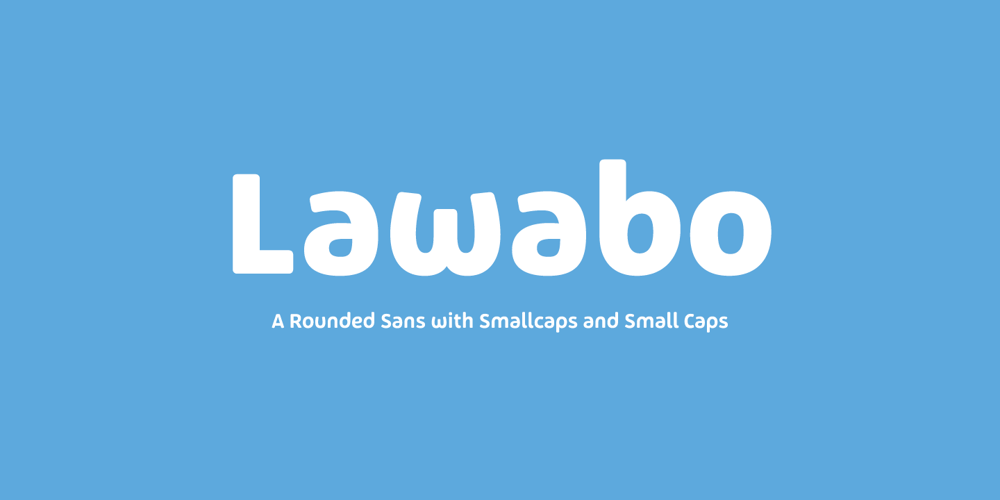
Lawabo Font Family was designed by Rainer Erich Scheichelbauer, Miriam Surányi and published by Schriftlabor. Lawabo contains 12 styles and family package options. The original Lawabo was started many years ago by Rainer Scheichelbauer. Its minimalistic and rounded shapes are reminiscent of bathroom ceramics, hence the name. Schriftlabor designer Miriam Surányi added bold and italic shapes, and produced the family.